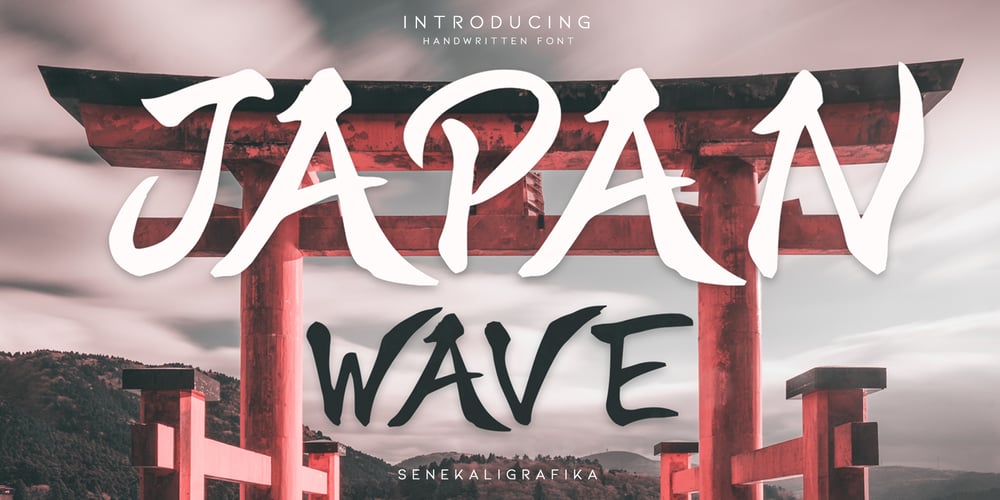
Japan Wave
Japan Wave font
Japan Wave Font Family was designed by Muhammad Helmi and published by Senekaligrafika. Japan Wave contains 1 styles and family package options. “Japan Wave” is a Japanese-style display font inspired by japanese calligraphy.This font is a handwritten font with a authentic japanese look and feel designed as unique as possible to create a beautiful and easy-to-read combination of sentences. This font is also very flexible for you to use in your various projects, ensuring that your project has a fantastic and appealing appearance that will be remembered by all audiences.Logotypes, food banners, branding, brochure, posters, movie titles, book titles, quotes, and more – may all benefit from this font.The owner of endless possibilities!